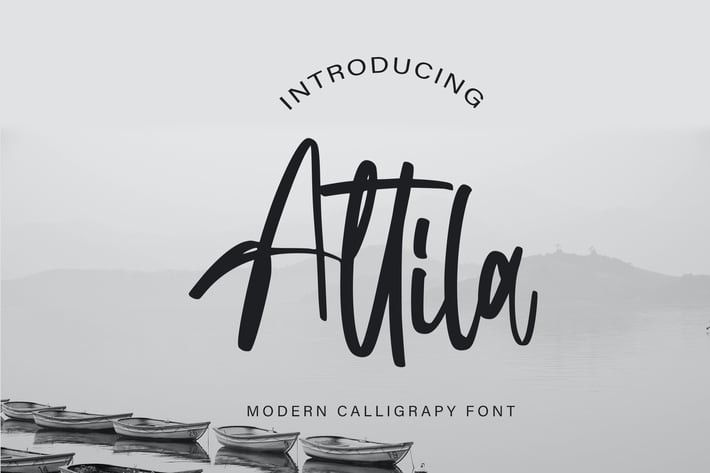
Attila | Modern Calligraphy Font
Attila | Modern Calligraphy Font with a calligraphy style, So beautiful on invitation like greeting cards, branding materials, business cards, quotes, posters, and more!